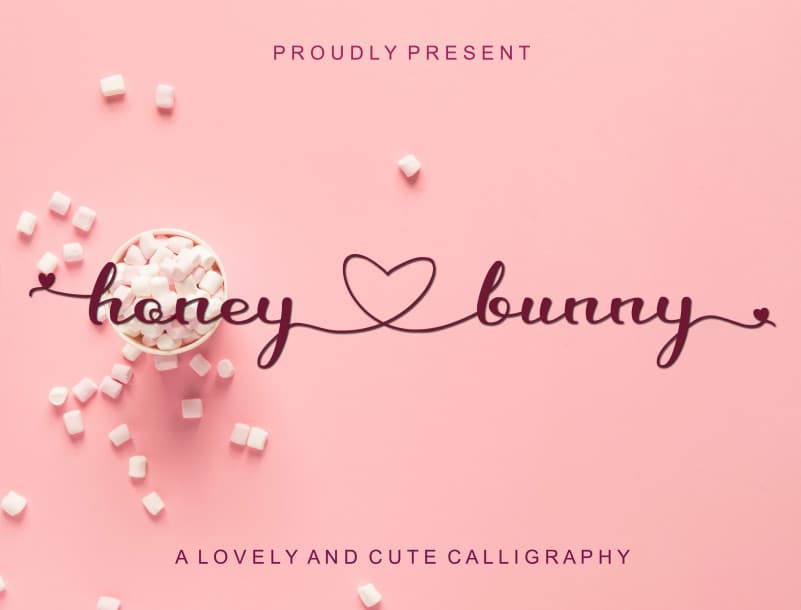
Honey Love Bunny Calligraphy Font
Honey Love Bunny Calligraphy Font is a modern calligraphy typeface. Made from font designer named Ahmad Afandi. Honey Love Bunny is perfect for branding projects, logo, wedding designs, social media posts, advertisements, product packaging, T-shirt design, product designs, label, photography, watermark, invitation, stationery, and any projects.